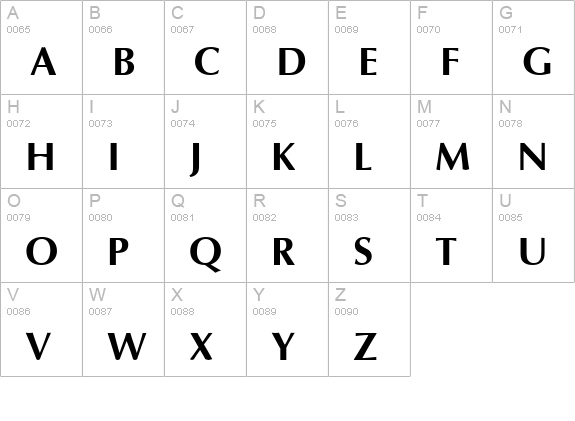
AGOpus Bold Font Details
AGOpus Bold is a strong, high-contrast variant in the AGOpus typeface family \xE2\x80\x94 well suited to headlines, attention-grabbing titles, and strong calls-to-action.
AGOpus Bold is a striking and versatile font that exudes confidence and modernity. With its bold and impactful design, AGOpus Bold is perfect for making a statement in headlines, logos, posters, and other design projects. The strong and bold lines of this font command attention and add a sense of authority to any text it is applied to. What's even better is that AGOpus Bold is available for free download at FontsMarket.com. This means that you can easily access this powerful font and use it in your projects without any cost. Whether you're working on a personal or commercial project, AGOpus Bold is a fantastic choice for adding a touch of boldness and sophistication to your designs. Download AGOpus Bold today and elevate your typography game to new heights!